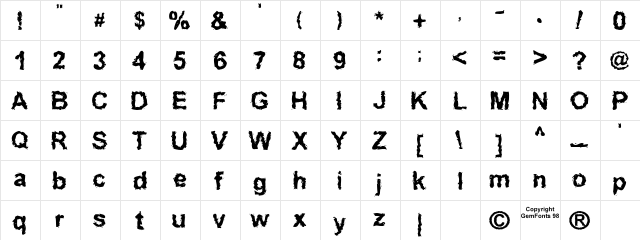
Inked weird
Design Context for Inked Typeface
Inked takes a measured approach to typography — its balanced proportions and neutral character make it a reliable workhorse for both digital and print work.